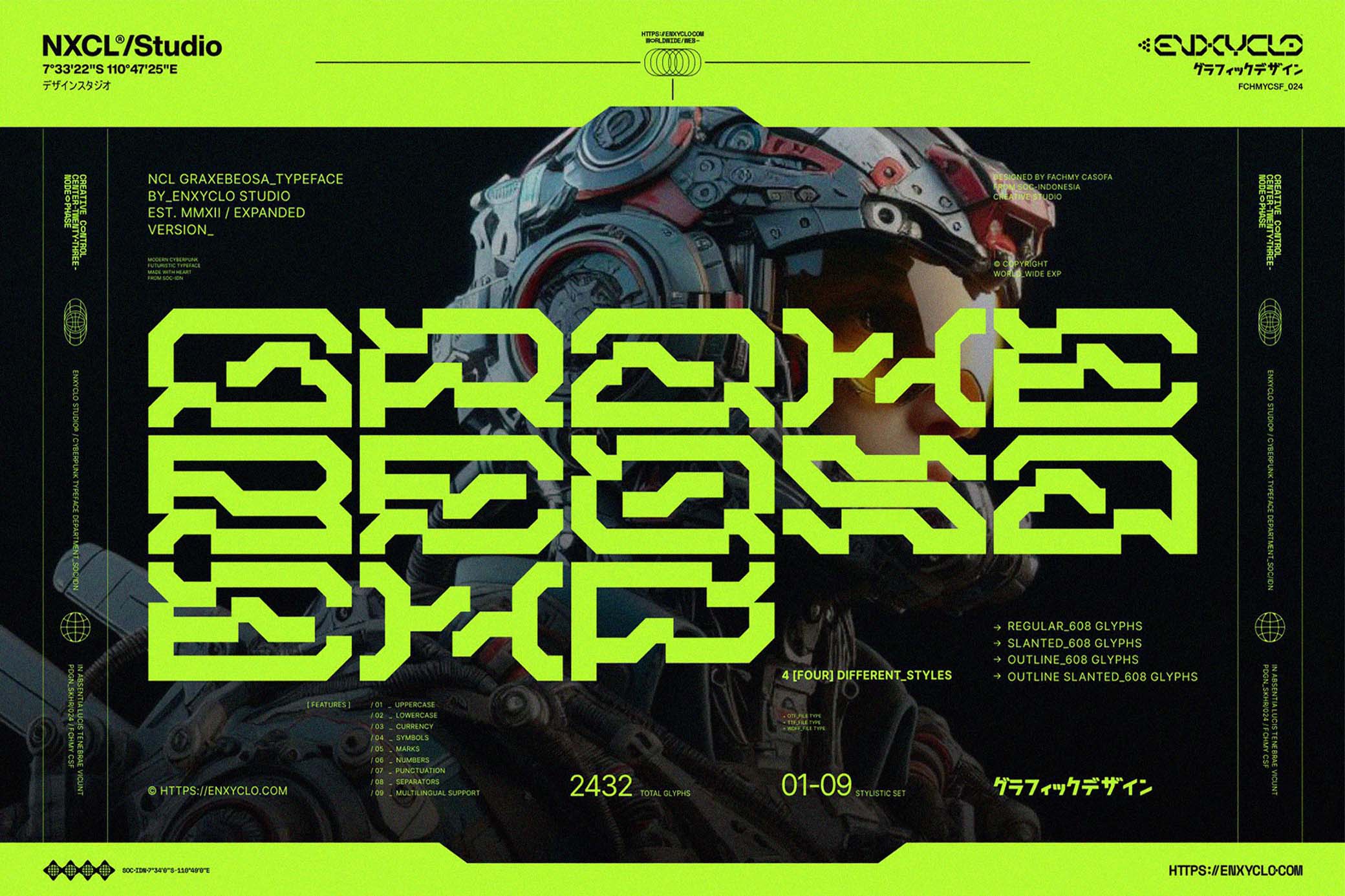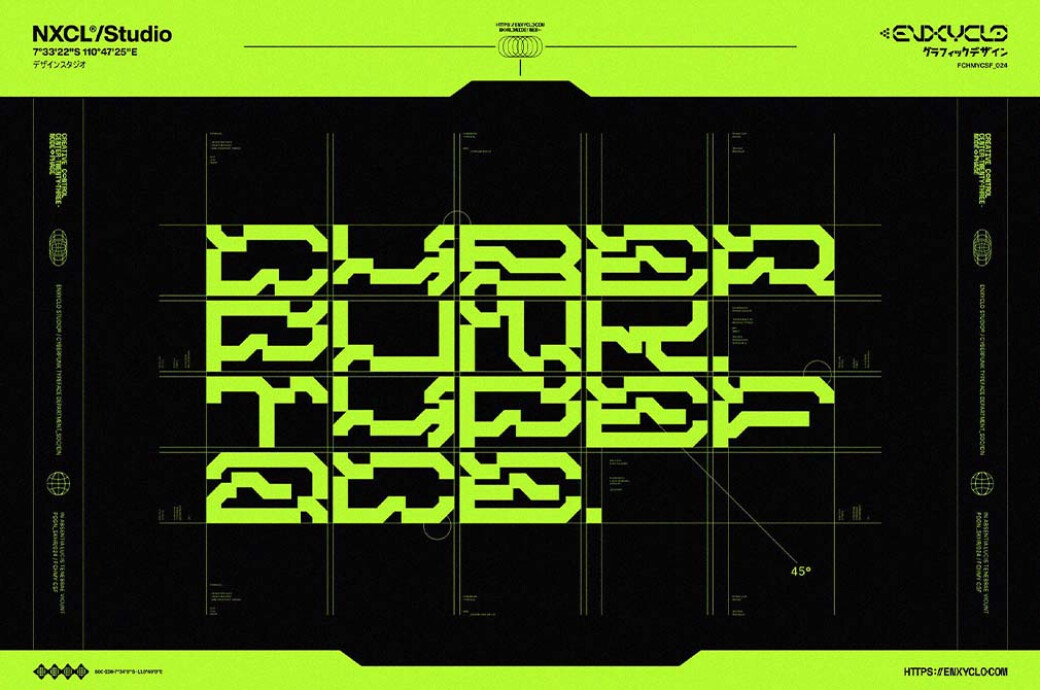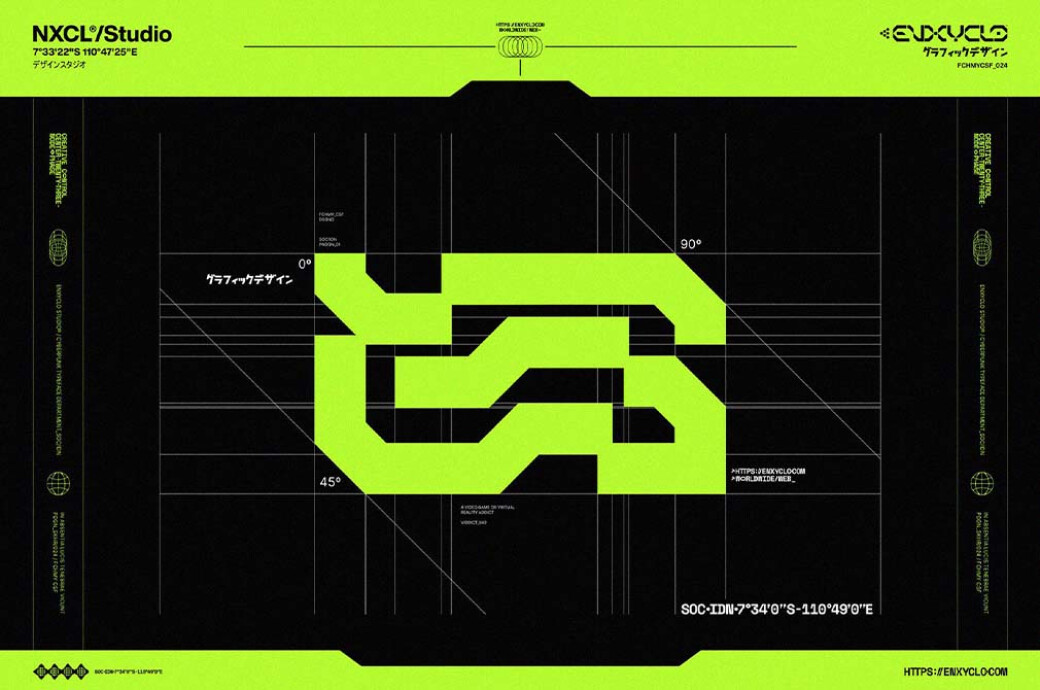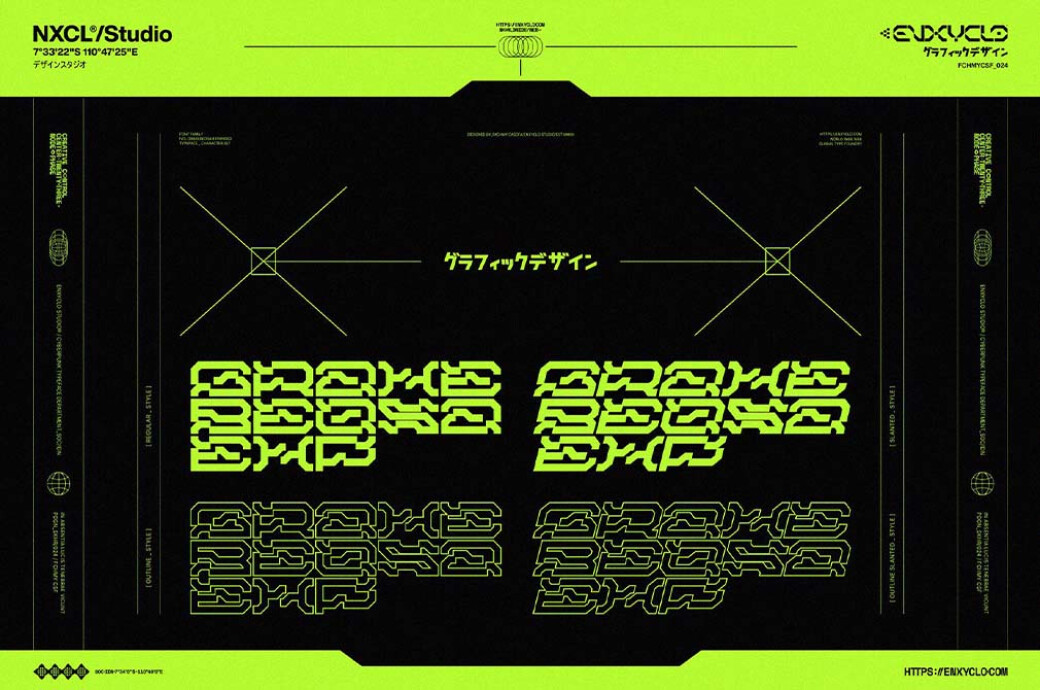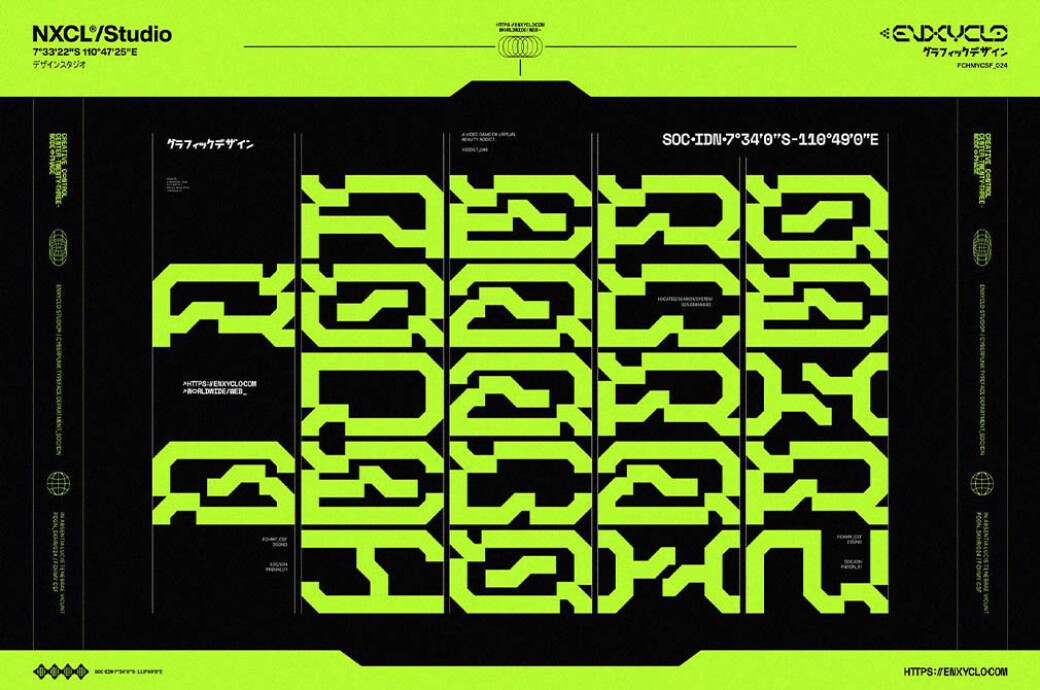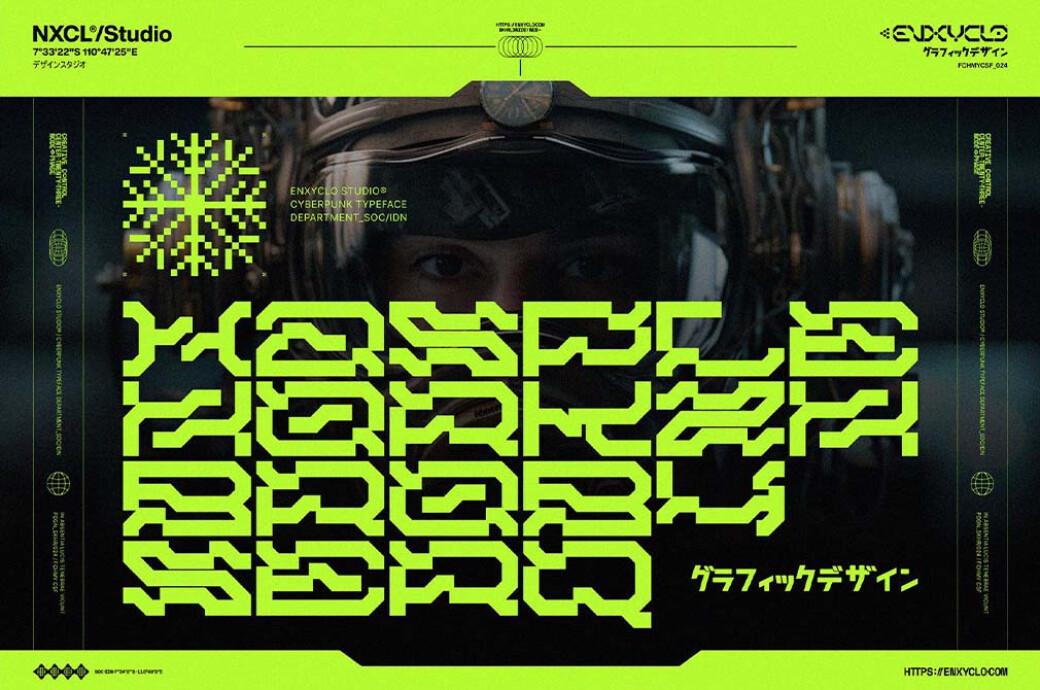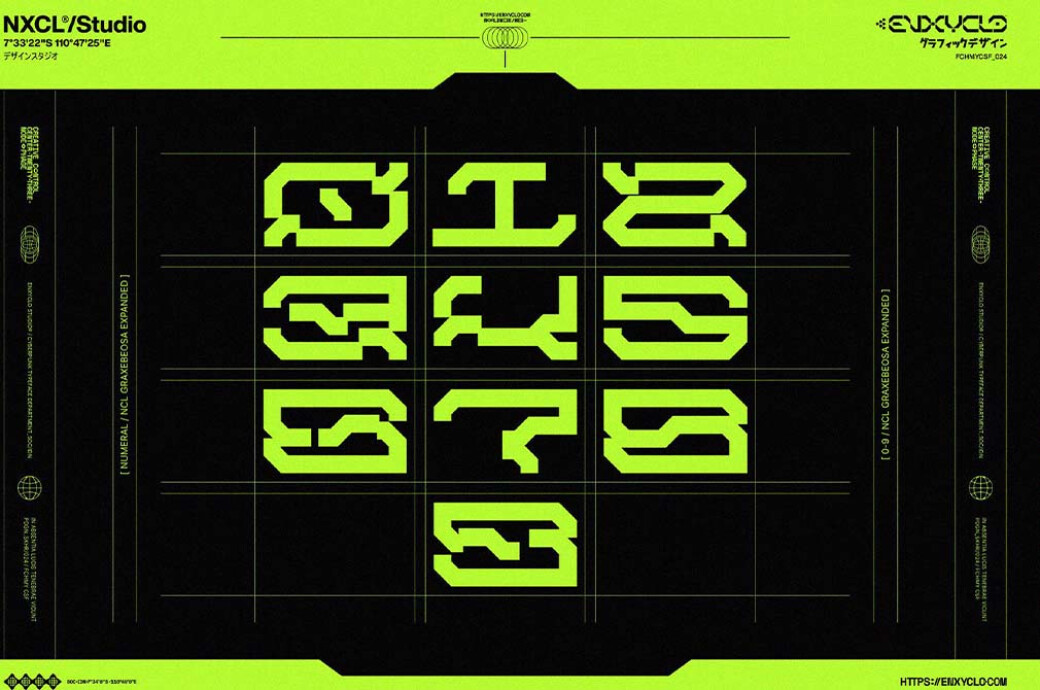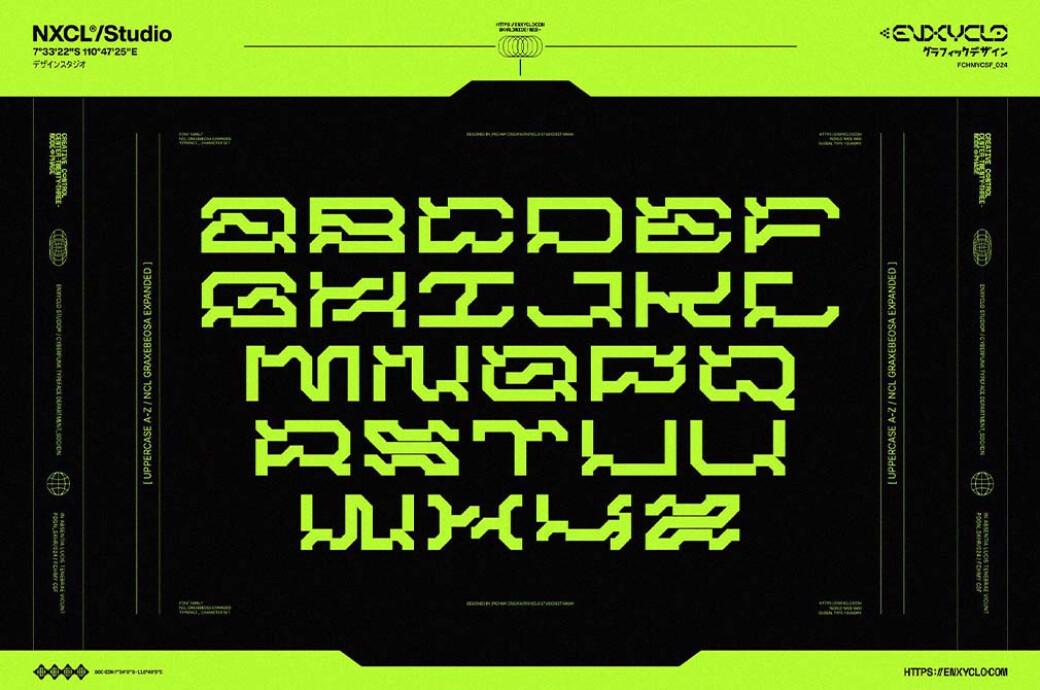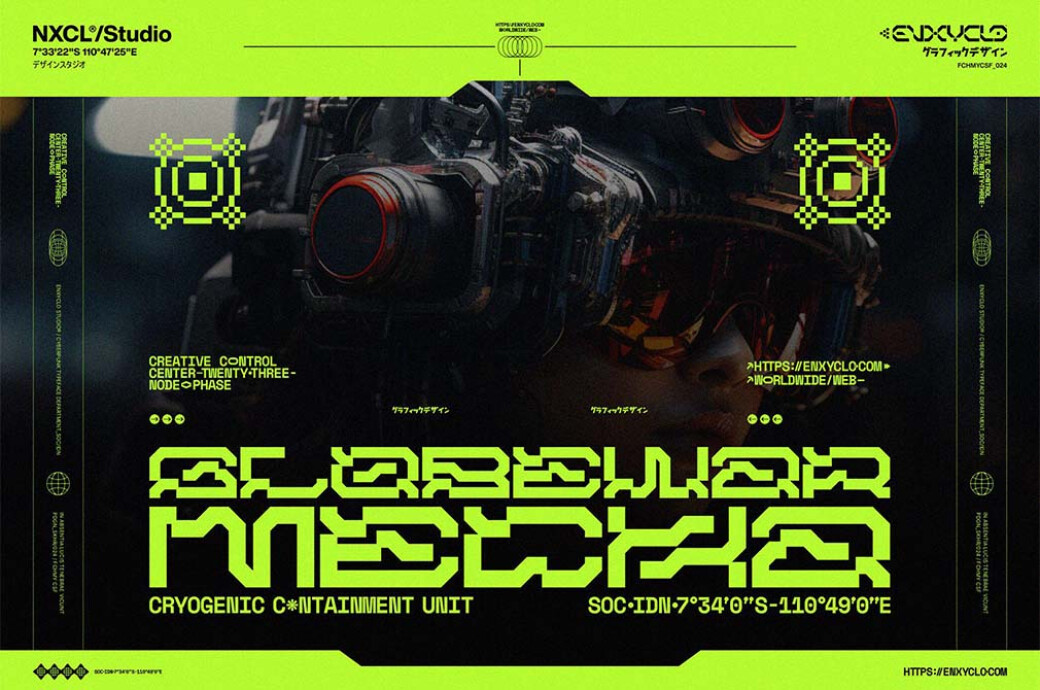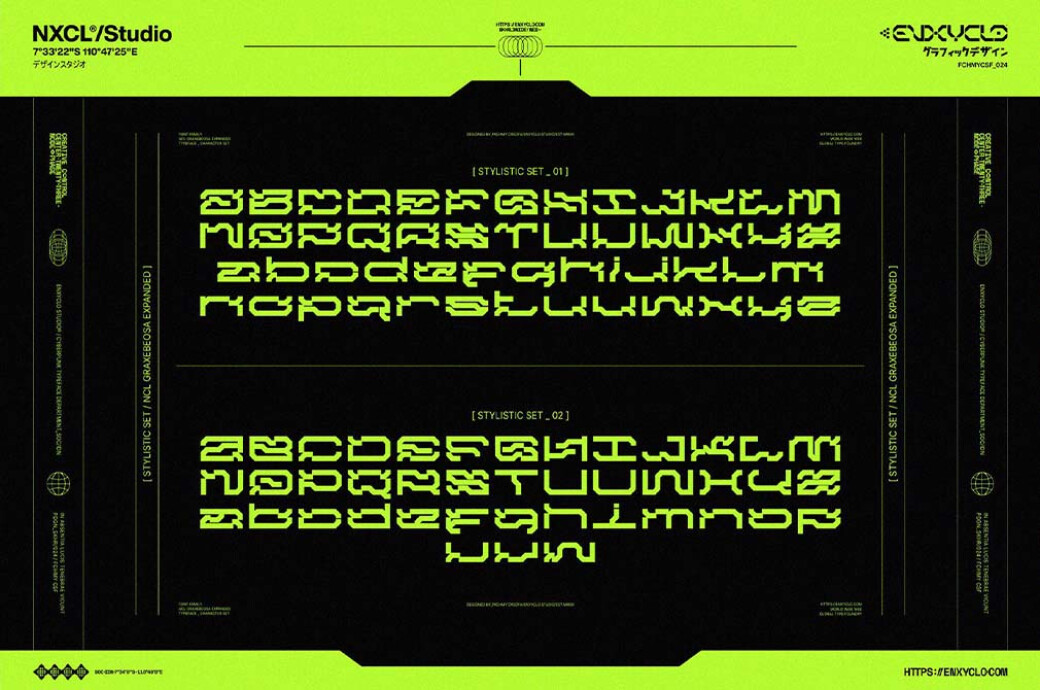
NCL Graxebeosa Expanded — Techno Mecha Font
Inspired by the greatest anime classics of all time, Graxebeosa Expanded is a pearl for all the fans of mecha. And it's their greatest partner in a creative fight.If this font could be a fighting machine, it would strike with its potent weaponry combined with stylish combat techniques. See for yourself: 4 styles**(Regular,** Slanted, Outline, Outline Slanted) with 608 glyphs for each. There are uppercase and lowercase characters, numbers, multilingual support, symbols, punctuation, and stylistic sets. Not only does it fit a spacecraft or machine logo, but it also fits any sports, streetwear, and cybersport stuff. Basically, anything you want to spice up with a futuristic or cyberpunk look.